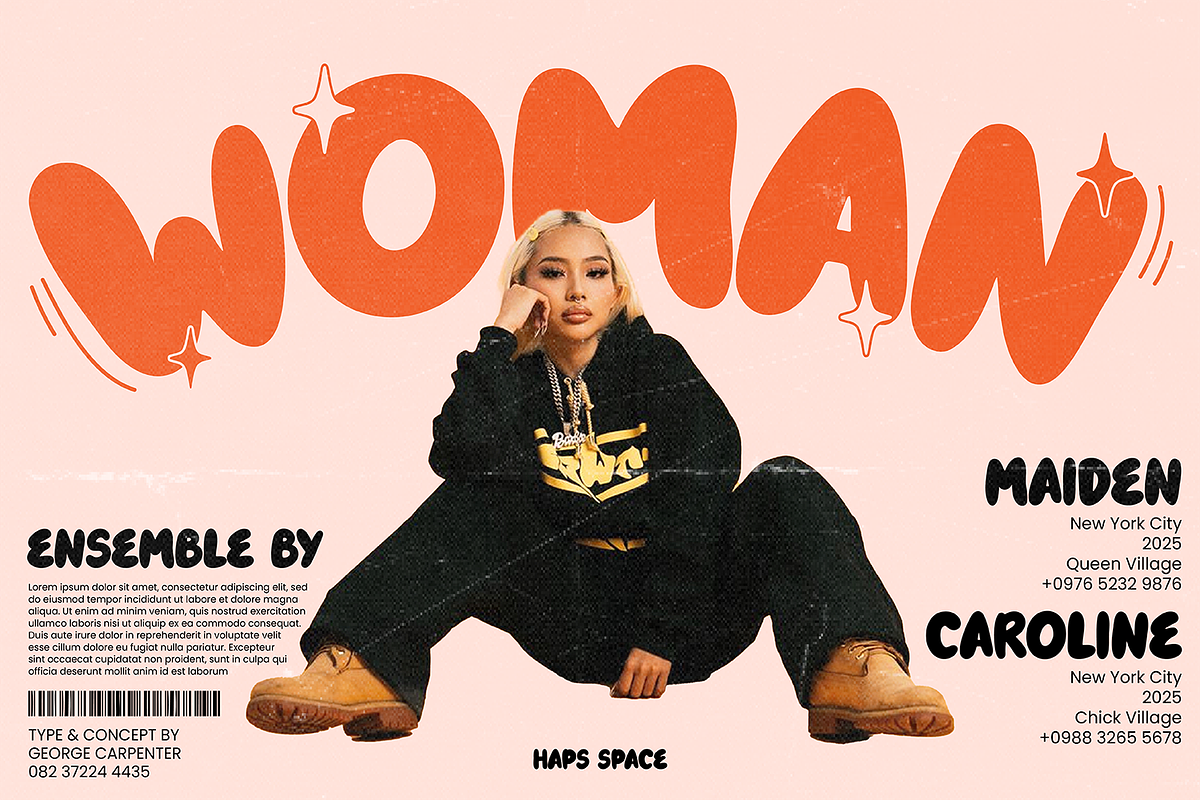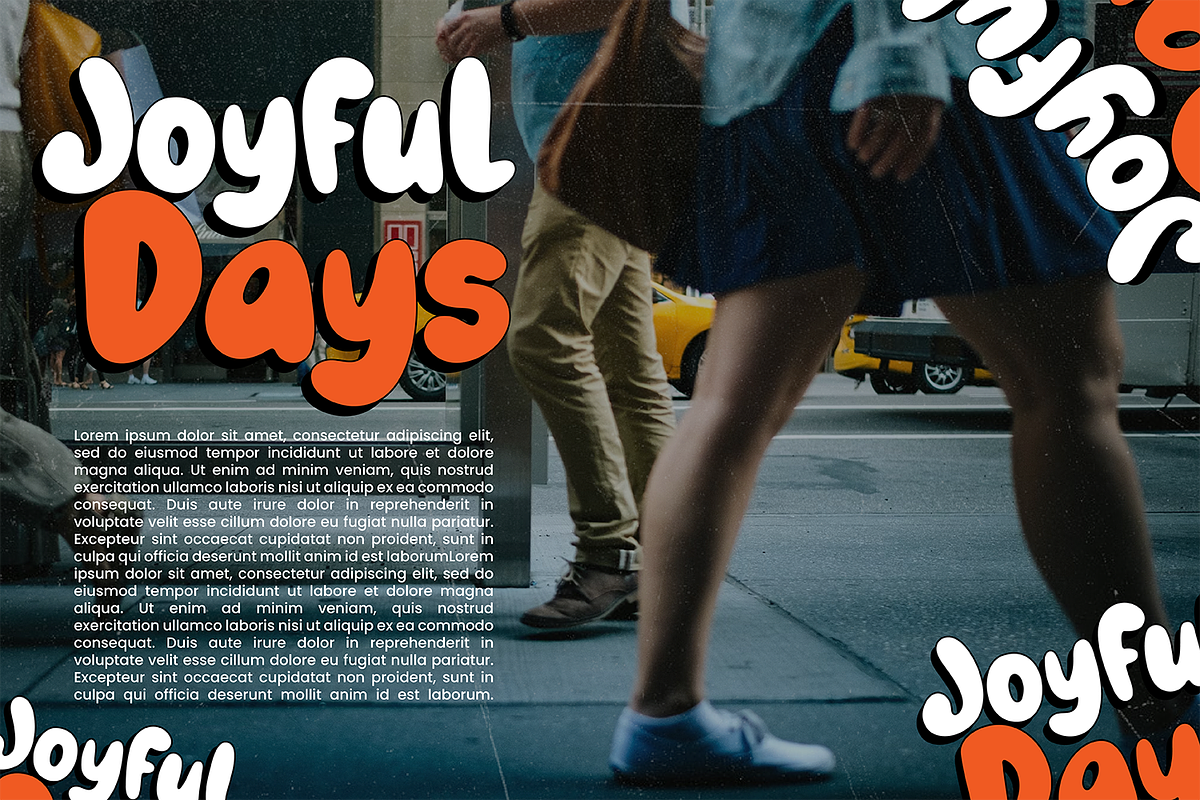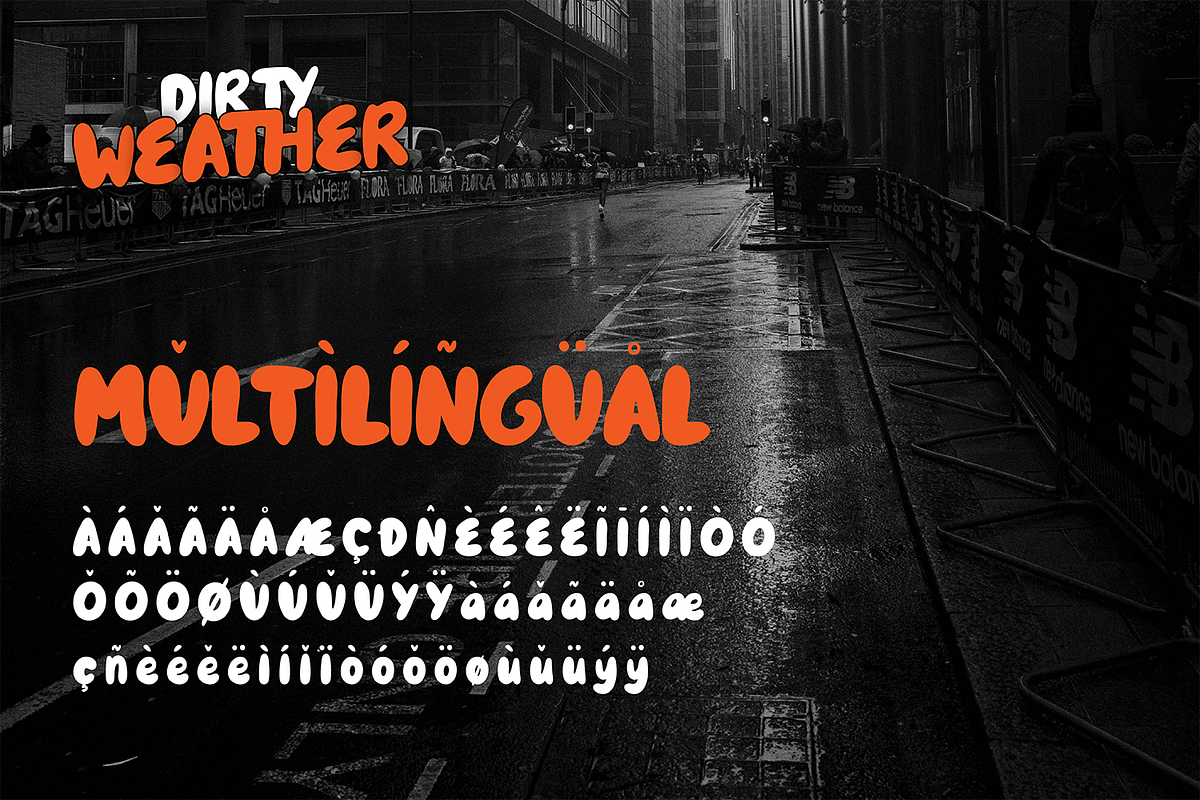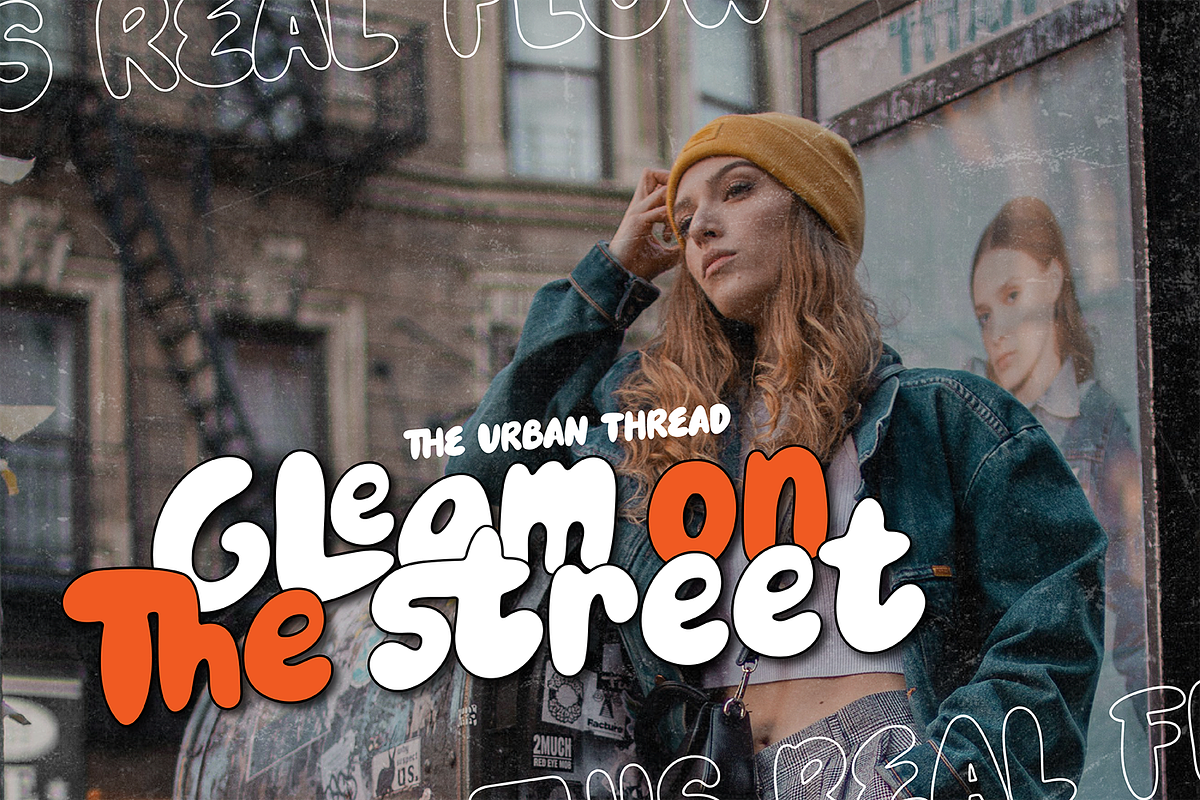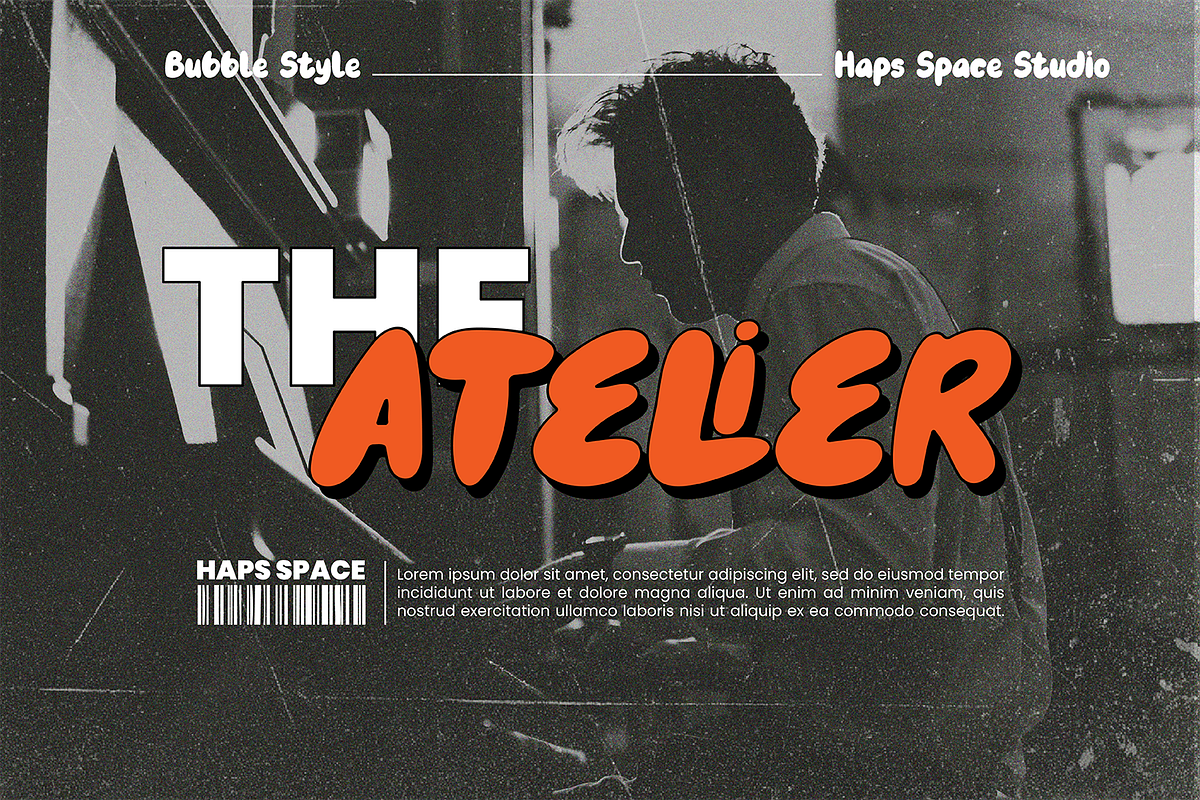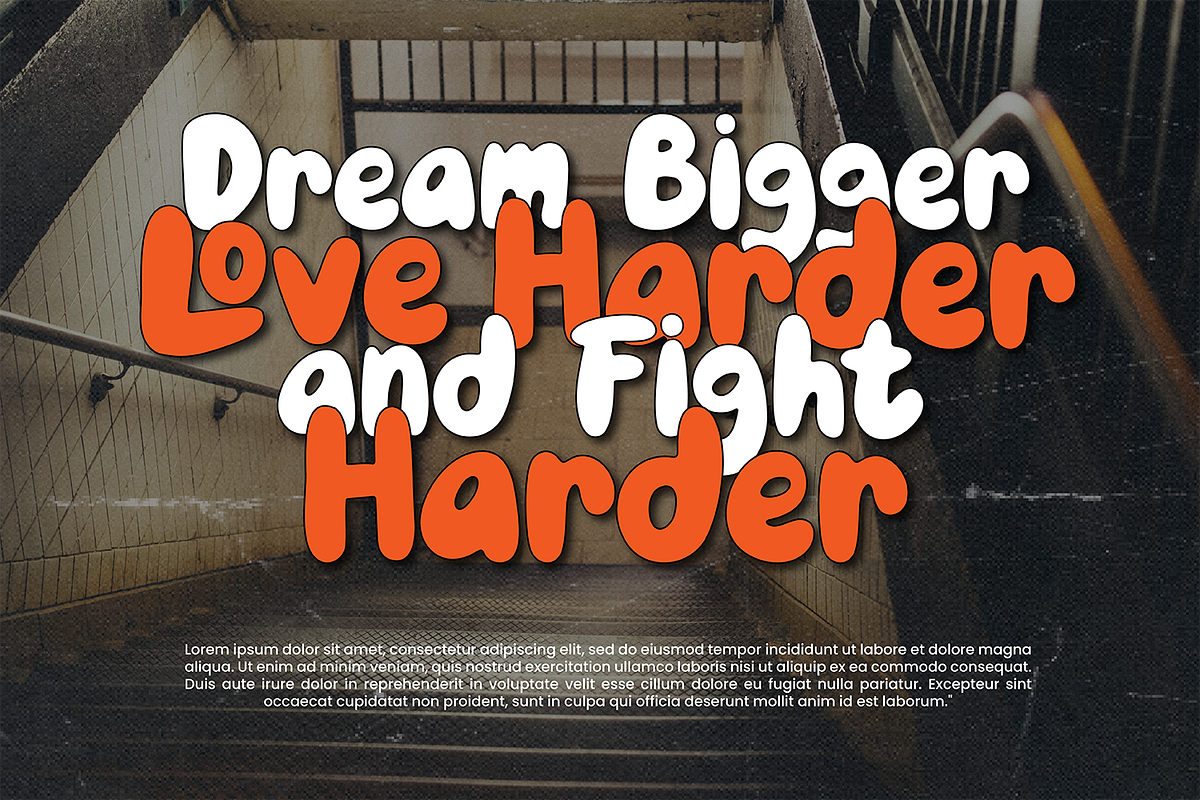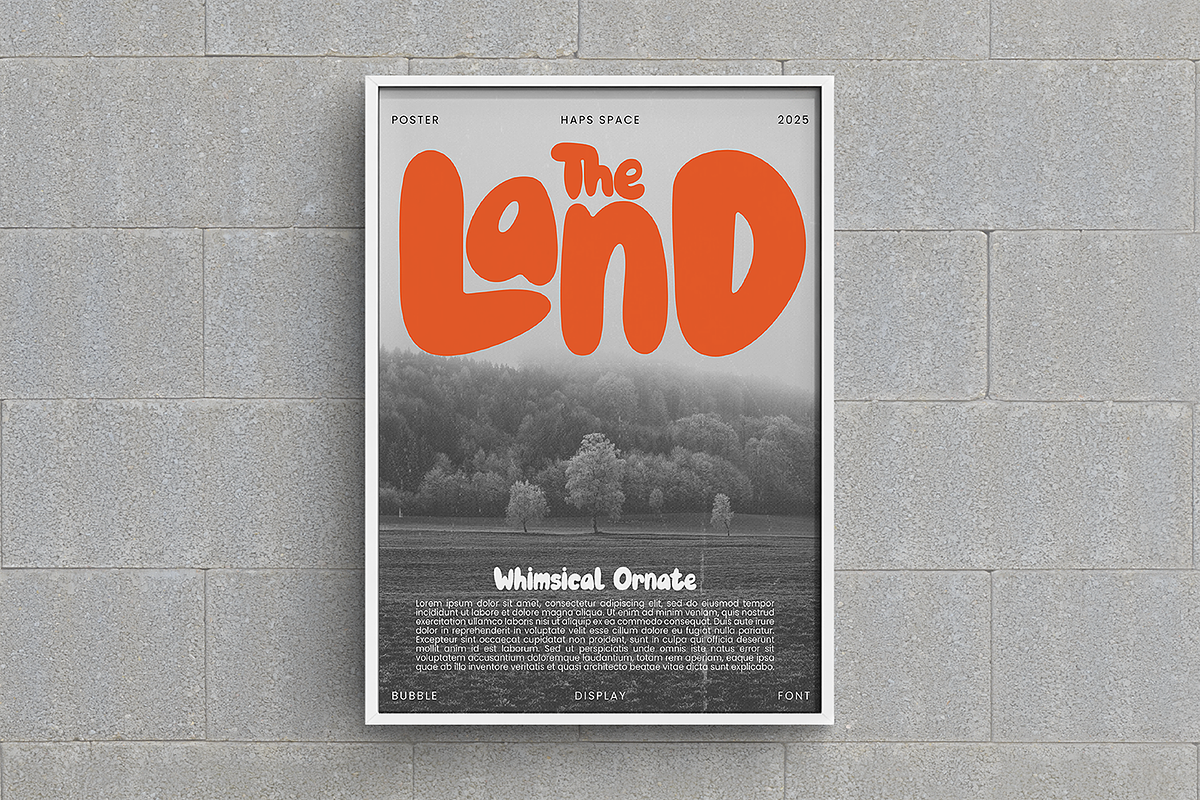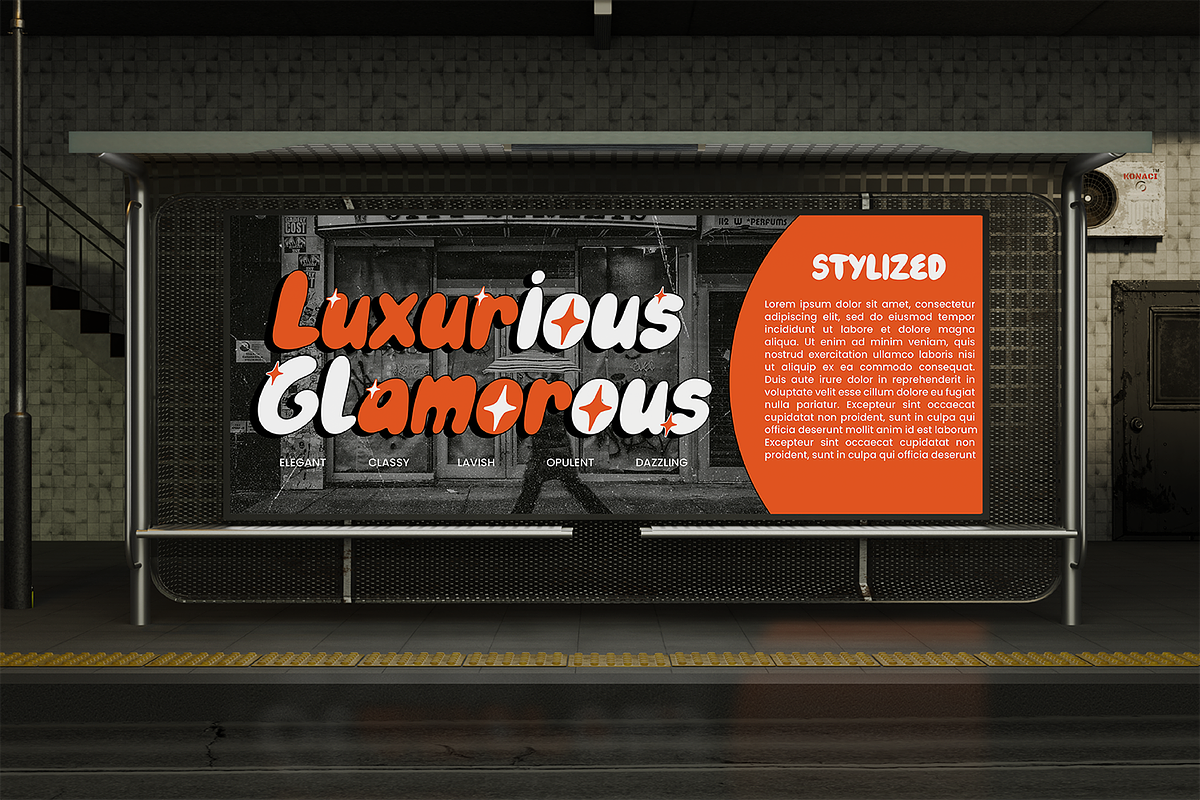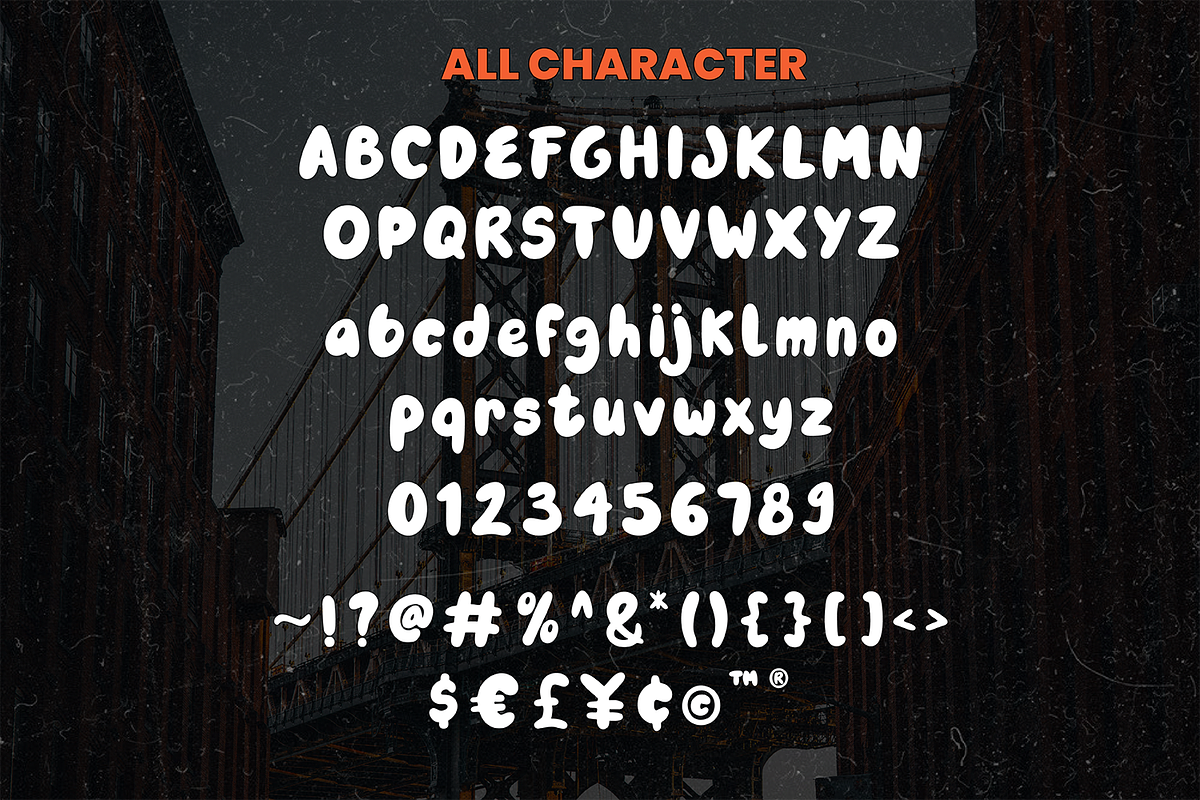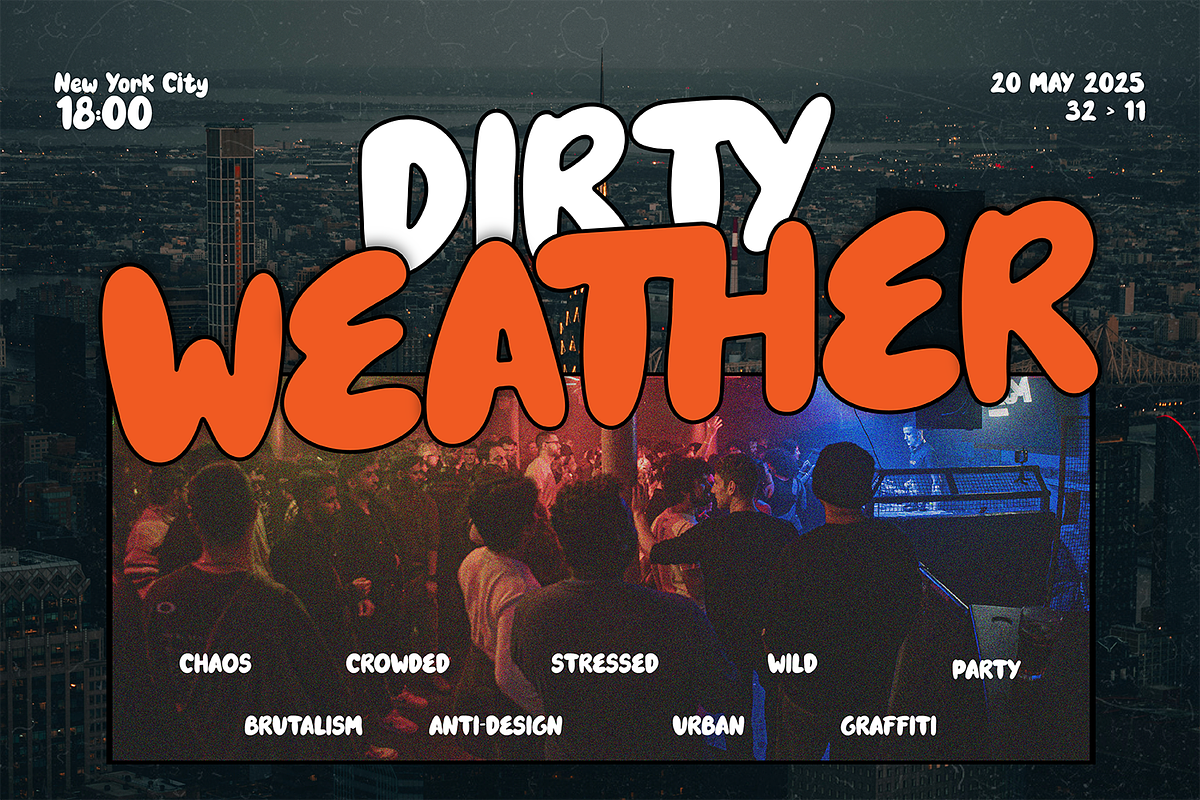
Dirty Weather Bubble Display
Dirty Weather is a bold and playful bubble display font designed to bring a cheerful and relaxed vibe to your creative projects. Its smooth, rounded edges and clean minimalist design make it highly versatile for a wide range of uses—from informal branding and logos to fun stickers, packaging, posters, and social media graphics. This font combines a modern aesthetic with a handcrafted feel, giving your designs a unique personality while maintaining professionalism.
Perfect for creatives looking to add a friendly and approachable style, Dirty Weather supports uppercase and lowercase letters, numbers, punctuation marks, and multilingual characters. Its customizable shapes allow easy pairing and blending with other design elements, making it an ideal choice for both personal and commercial projects.
- Bold and playful bubble display style
- Smooth, rounded edges with a minimalist design
- Full set of numbers and punctuation marks
- Multilingual support for extended language compatibility
- Versatile use: logos, stickers, packaging, posters, social media, and more
- Easy to customize and pair with other design elements
- Clean and modern aesthetic with a handcrafted touch